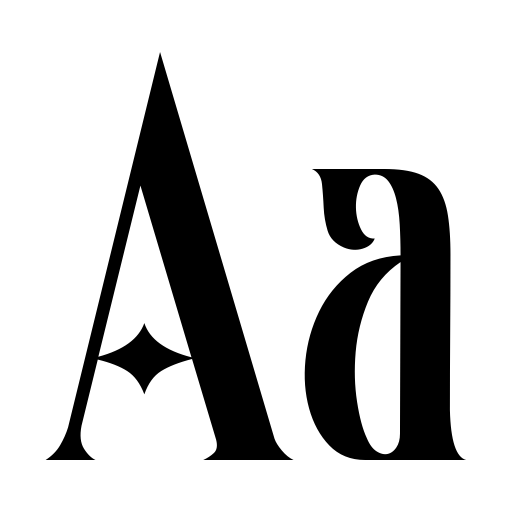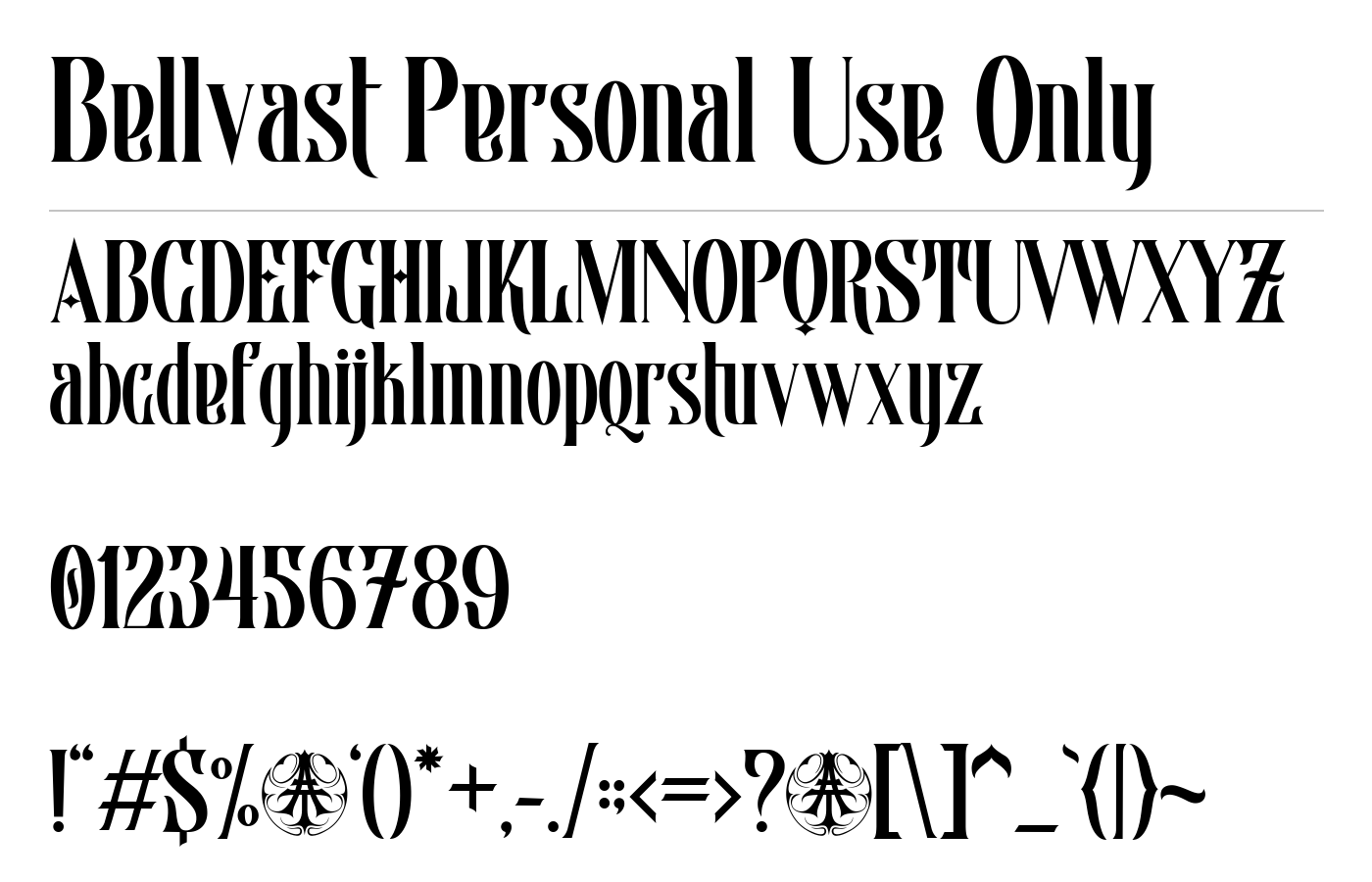
Bellvast Personal Use Only is a striking serif font with a condensed, tall appearance and strong contrast between thick and thin strokes, giving it an elegant and dramatic feel. Its unique details, such as ornate diamond-shaped counters and stylized tail elements, make it perfect for luxury branding, high-end editorial headlines, and vintage-inspired design projects where a bold statement is desired. This font works best in large sizes, adding sophistication and personality to logos, posters, and fashion-oriented packaging.
Bellvast Personal Use Only Font
About Bellvast Personal Use Only Font
| Font family | Bellvast Personal Use Only Font |
| Designer | TypeAliens |